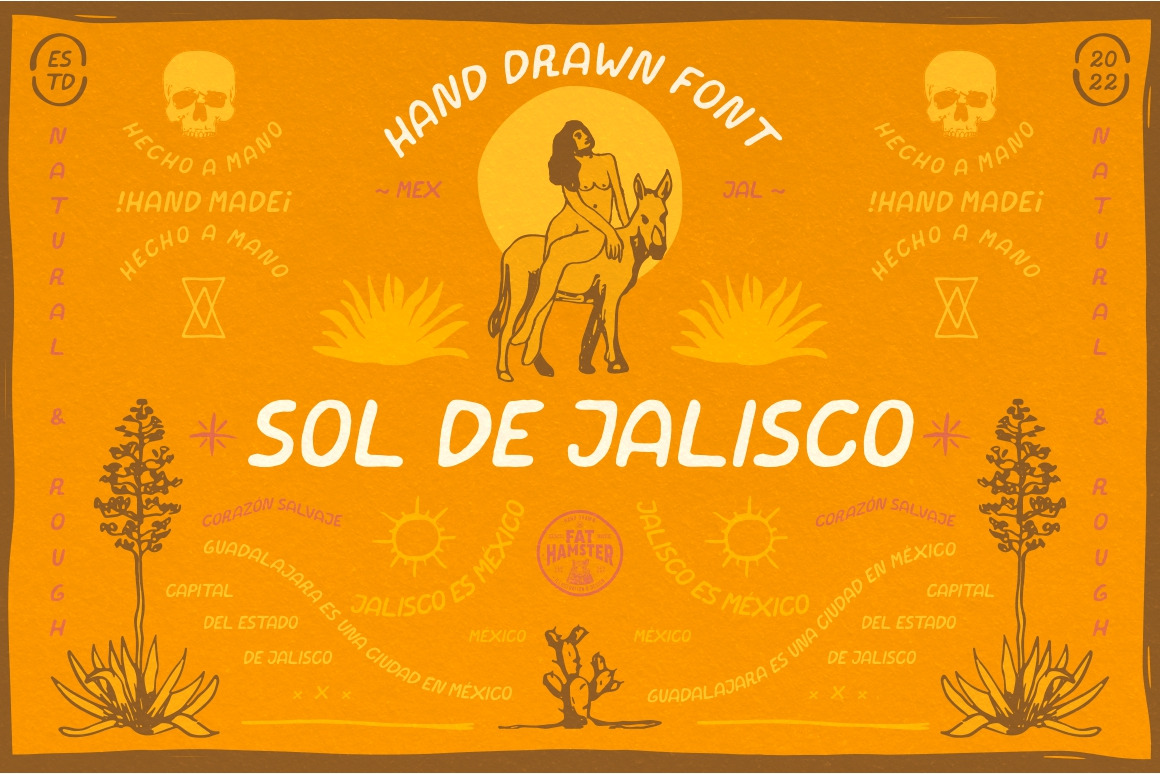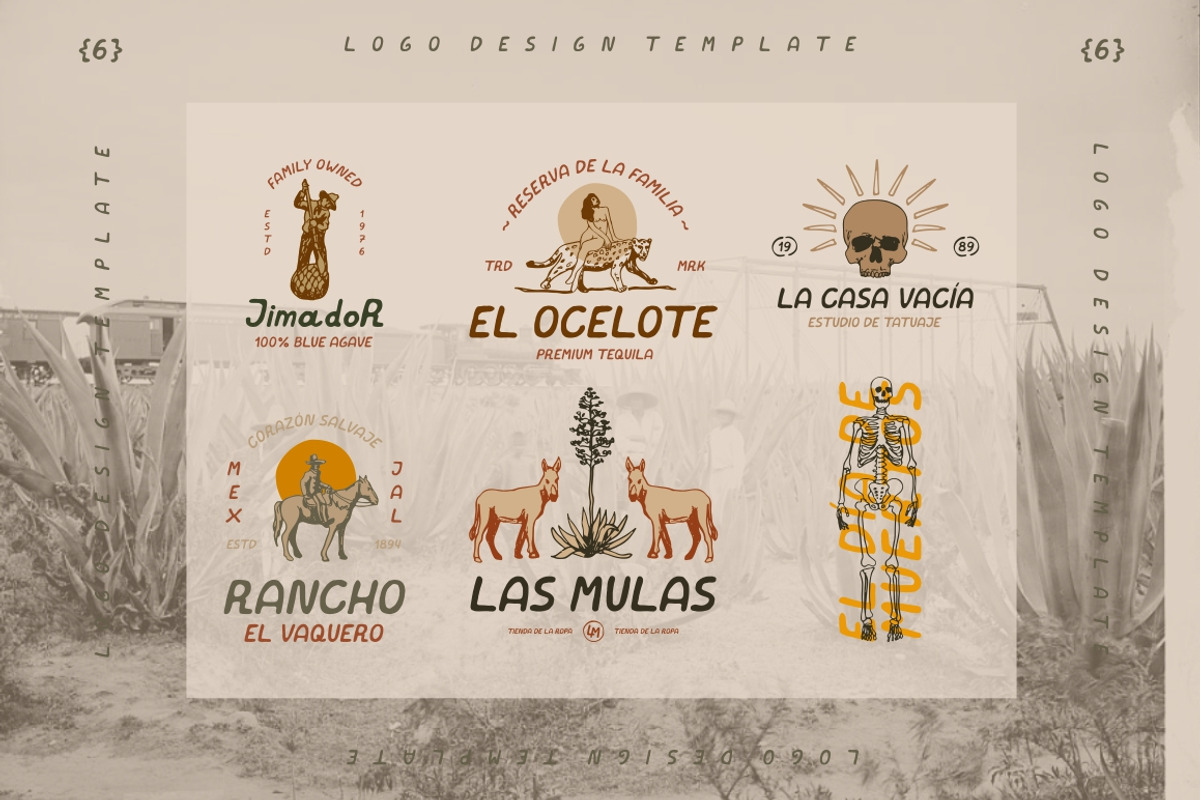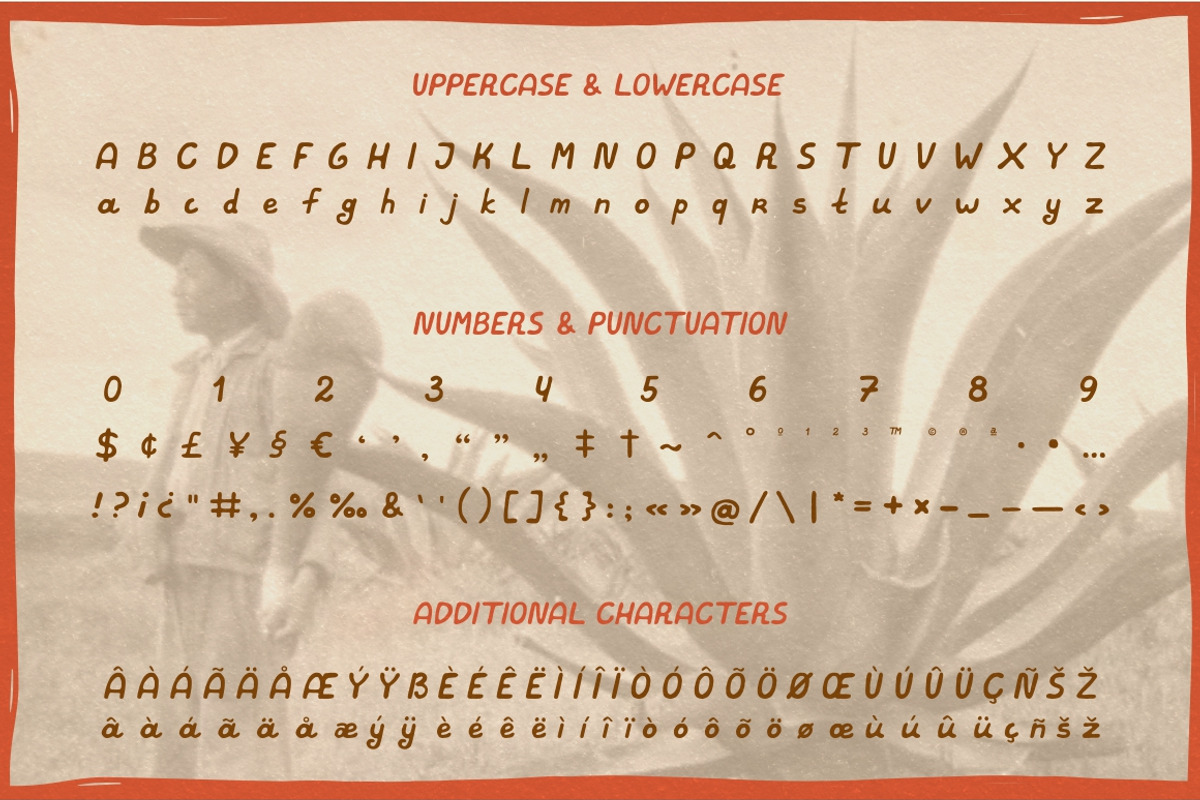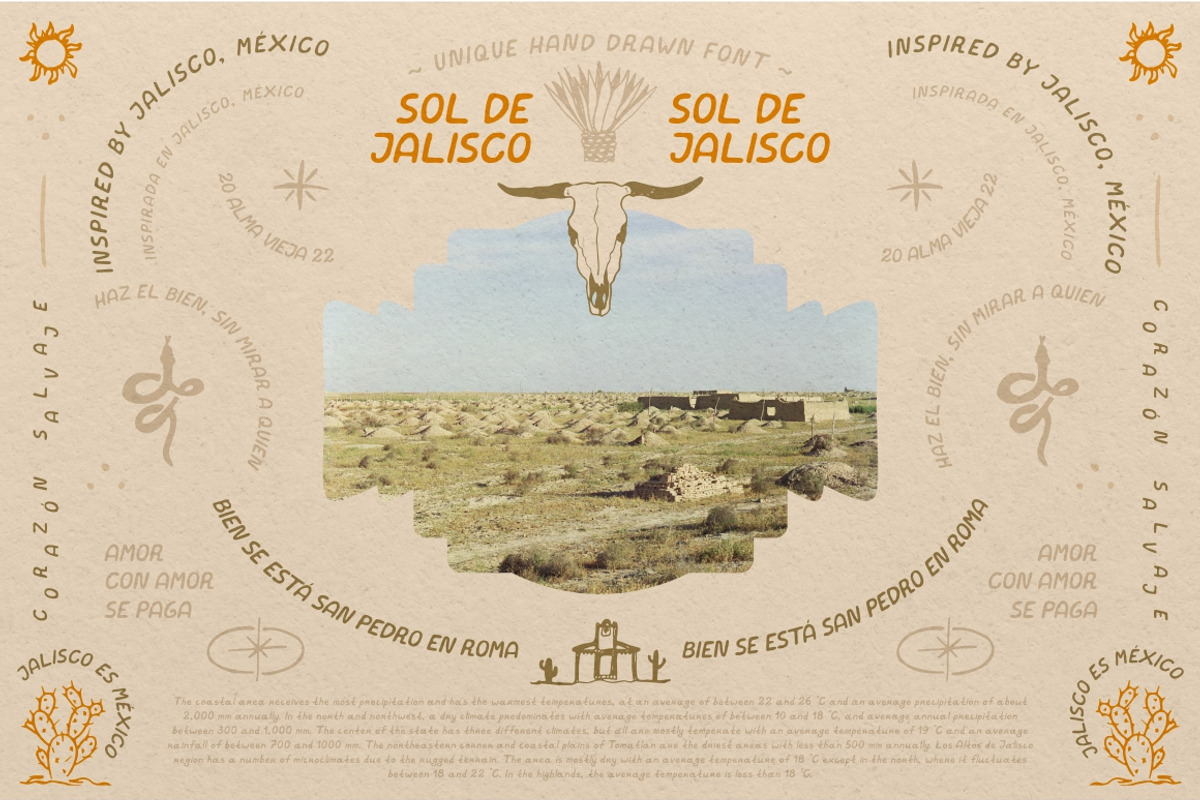
Sol de Jalisco mexican style font
Sol de Jalisco - Hand made old mexican style font
With Sol de Jalisco font you can give your project it's own unique and stylish feel. Sol de Jalisco inspired by view of blue agave valley in Jalisco, Mexico. Sol de Jalisco typeface is perfect for your tequila and mezcal label and packaging design, social media quotes, logo and branding design, t-shirt design, whiskey, beer label and packaging design, heading, scrapbooking, calendars, book covers. Enjoy using the logos and little marks in your design projects.